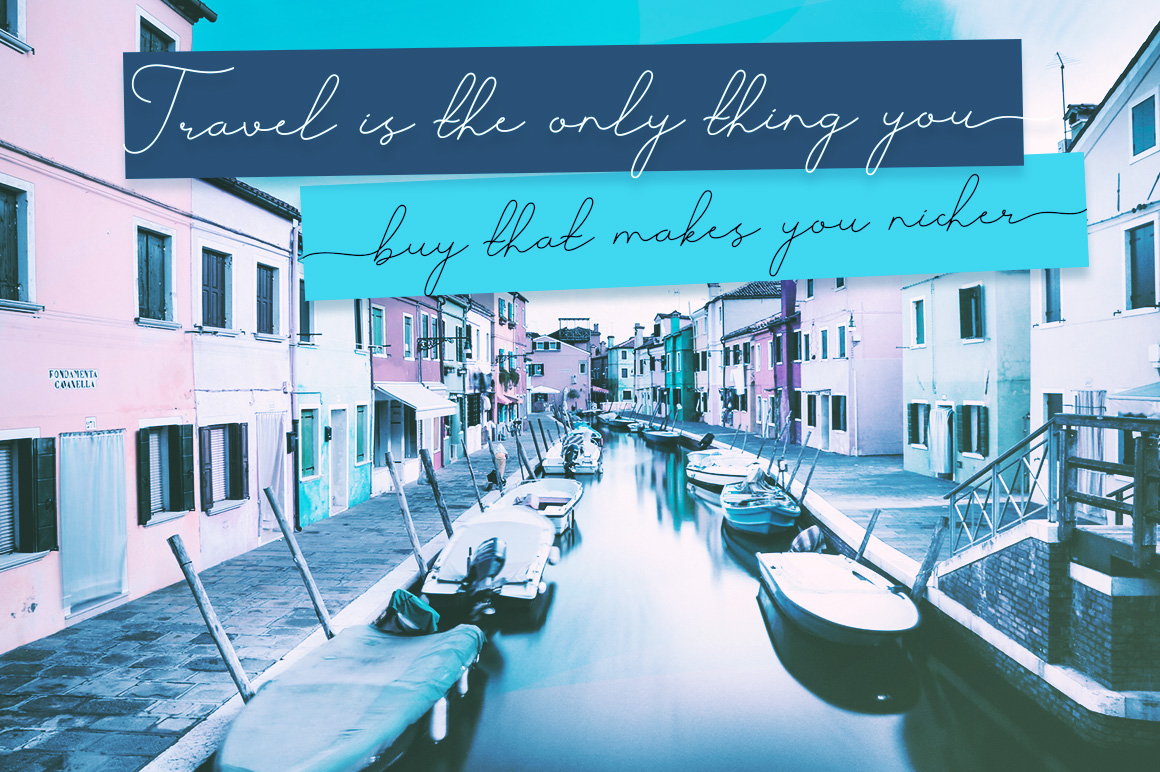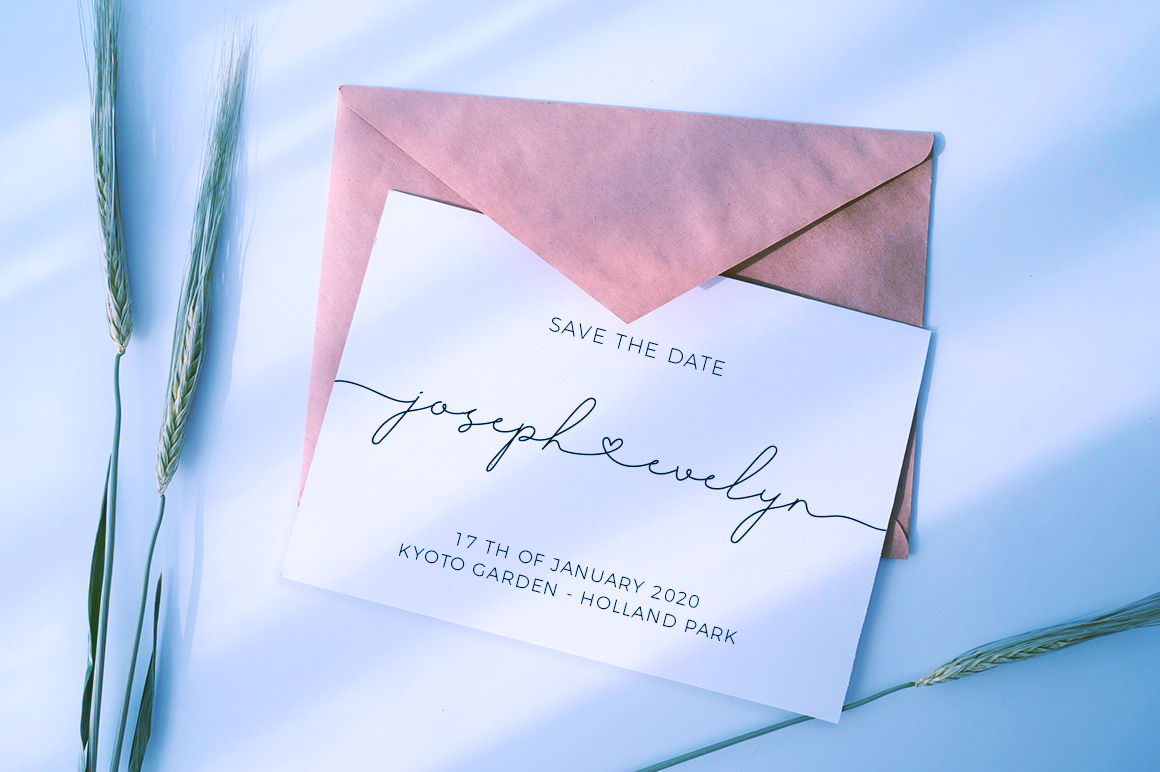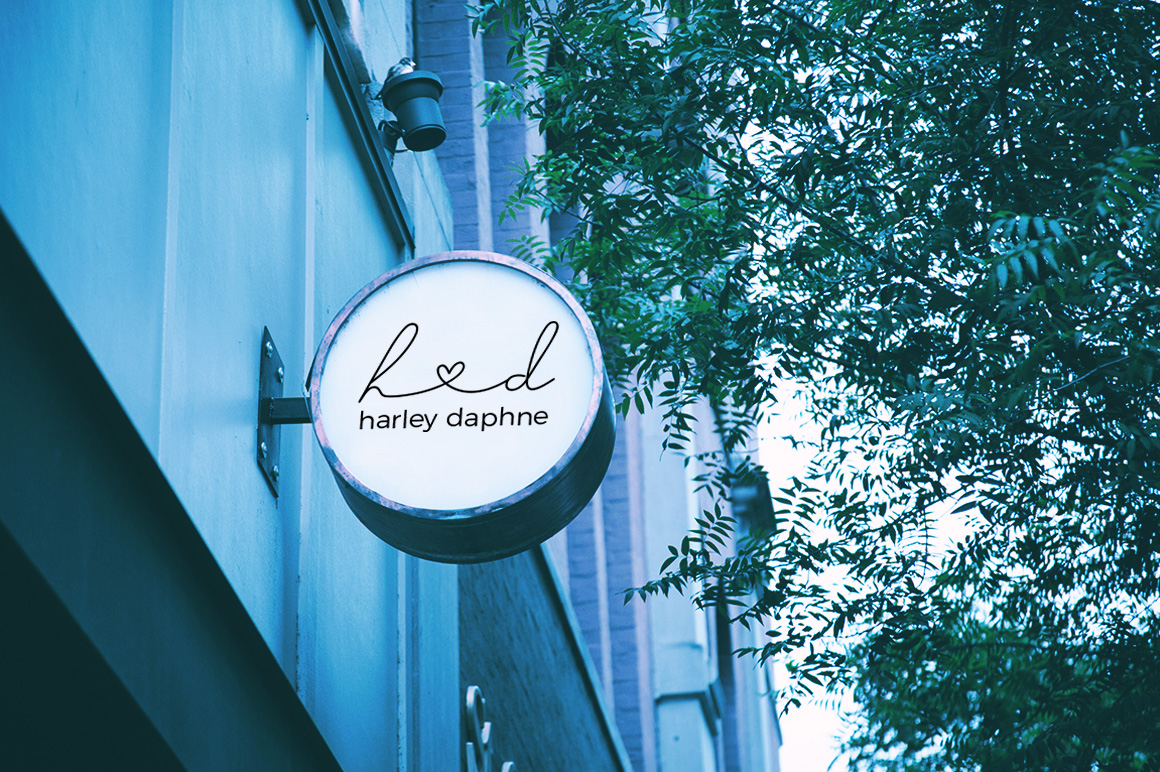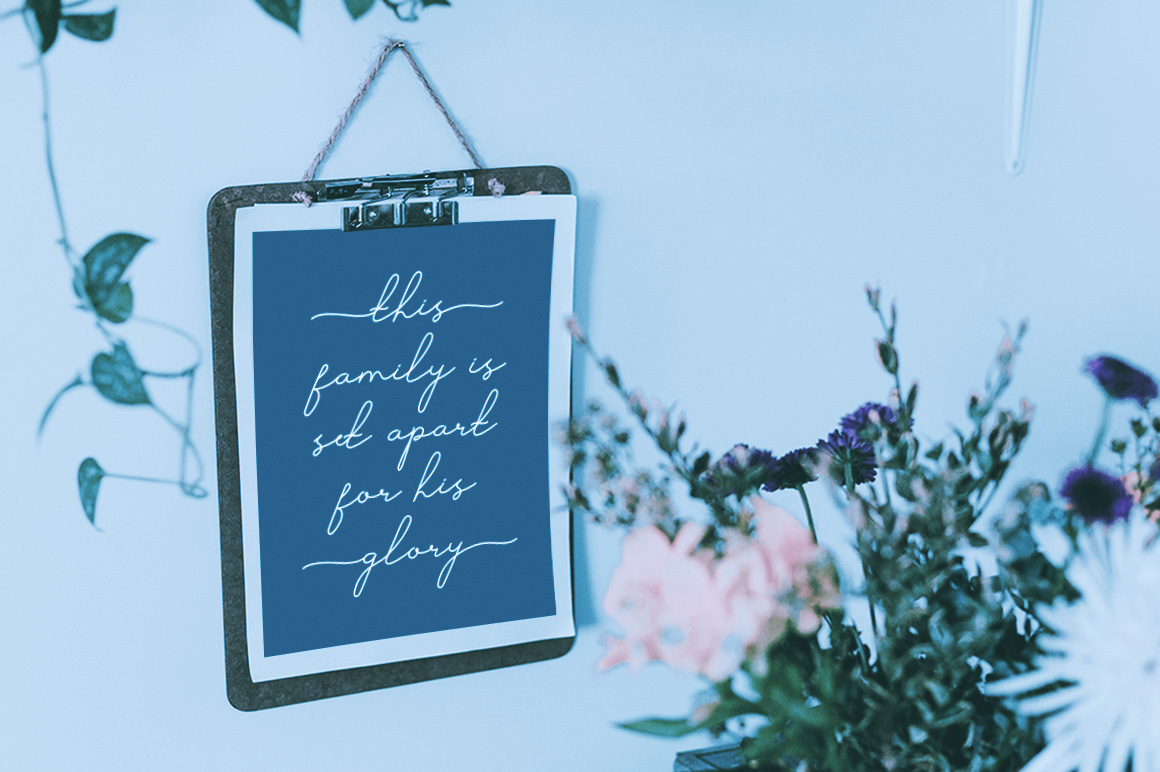
Sunday Girl Script Free Font
Sunday Girl Script Free Font is clean & fresh script with a stylish handwritten and script style that makes this font looks natural, classy, and perfect for any awesome projects that need handwriting taste. Sunday Girl Script Free Font font is perfect for creating authentic hand-lettered text quickly & easily. This font also perfect for many different projects such as logos & branding, invitation, stationery, wedding designs, social media posts, advertisements, product packaging, product designs, label, photography, watermark, special events, or anything. This free typeface was designed by a talented Typesthetic Studio. If you like it don’t forget to check out the full version.